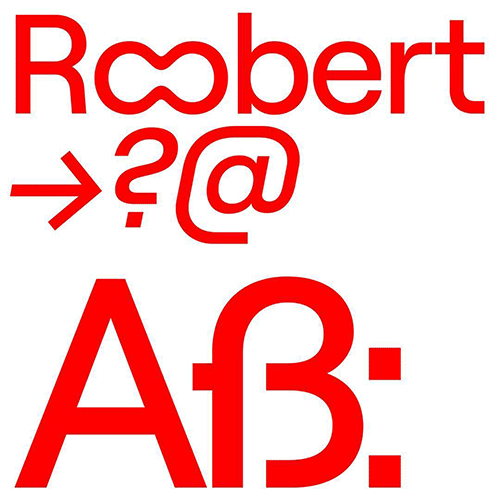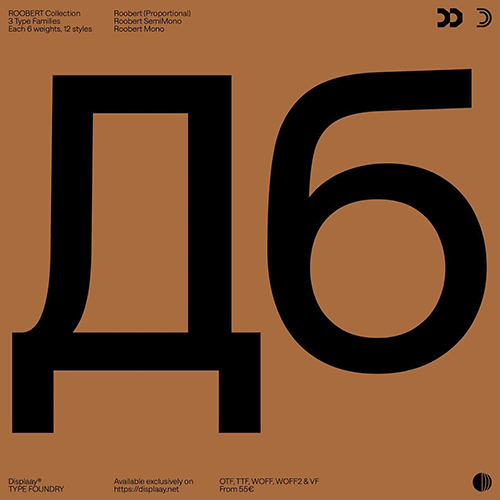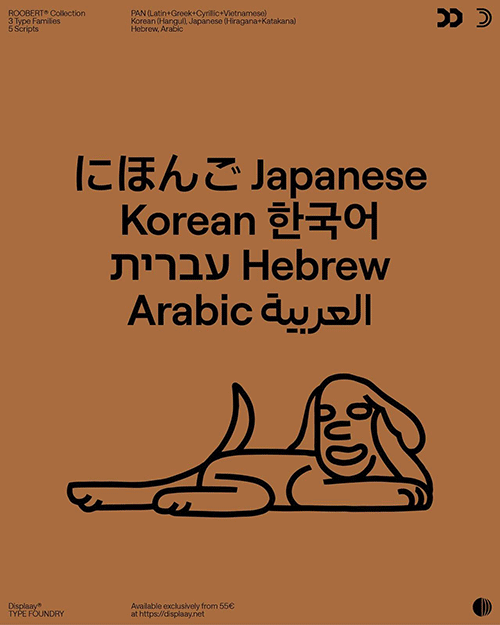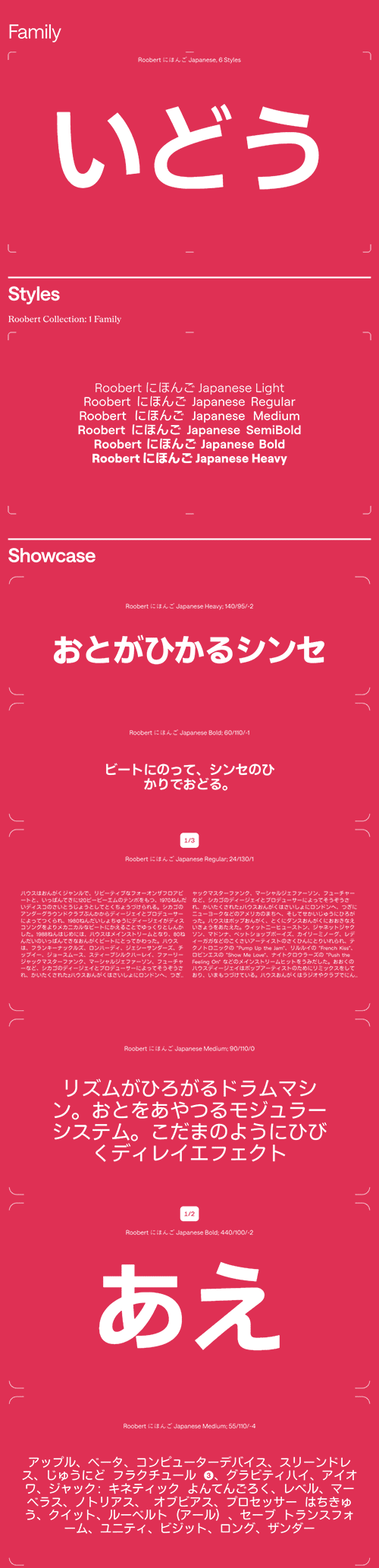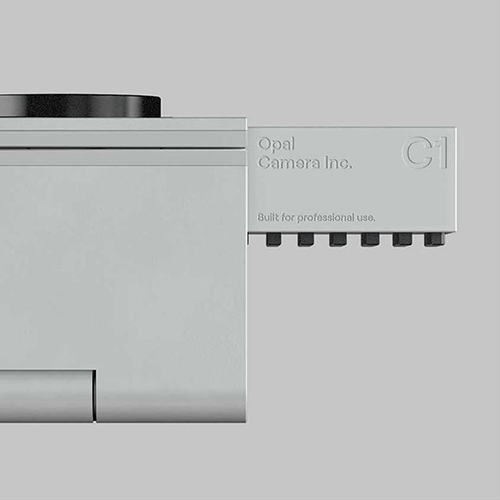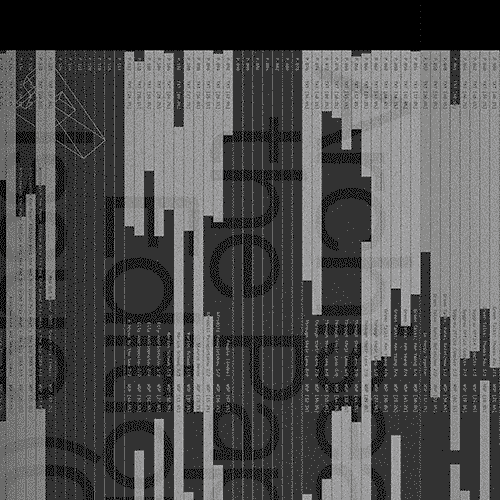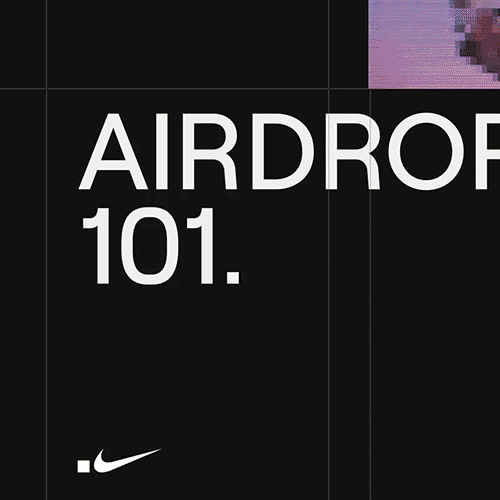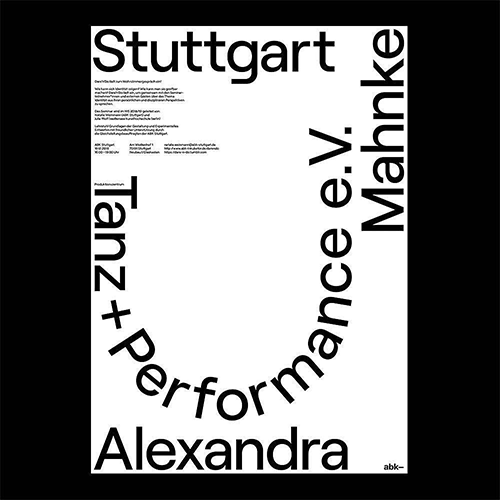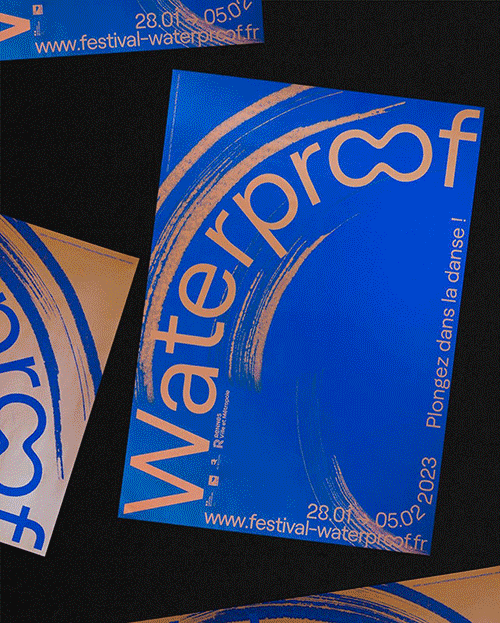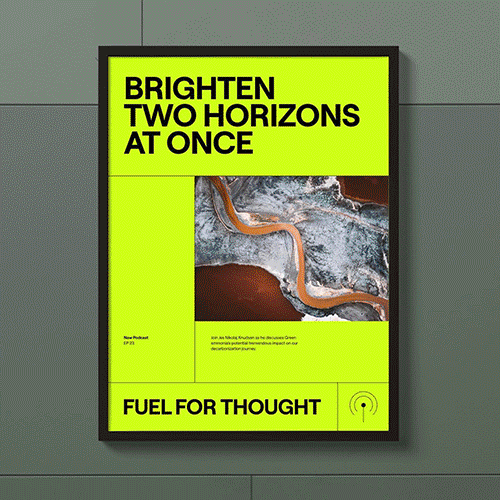
Roobert Collection NEW!
5 Scripts International Grotesque Industriality
90 Styles + 5 Variable Fonts SuperFamily v4.008
- Roobert is a mono-linear, geometric sans-serif typeface characterized by its clean, horizontal and vertical terminals, and smooth connections on the stems. Originally crafted as a custom typeface for Moogfest 2017, Roobert draws its foundational inspiration from the Moog logotype, notably its unique single-story “g” with a rounded bottom corner and a streamlined finish. This inspiration is evident in the typeface’s distinct “bent pipe” feature, observed in the comma and ingeniously echoed throughout the entire typeface.
Roobert Latin (Latin, Syrillic & Greek) 3 Families, 18 Weights, 36 Styles -------------------- Robert Arabic 6 Weights, 6 Styles -------------------- Robert Hebrew 3 Families, 18 Weights, 36 Styles -------------------- Robert Korean 6 Weights, 6 Styles -------------------- Roobert Japanese 6 Weights, 6 Styles